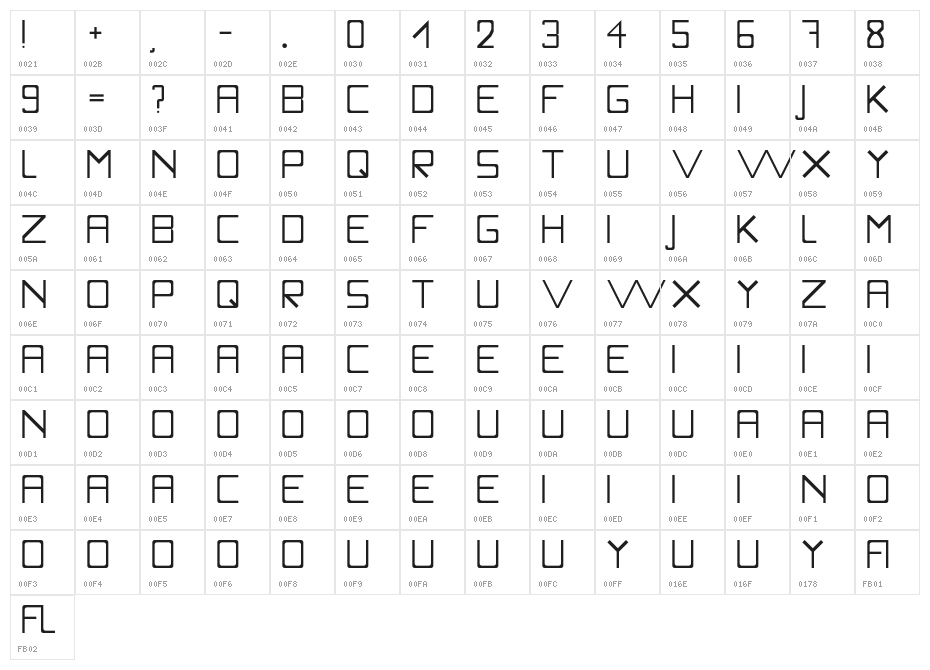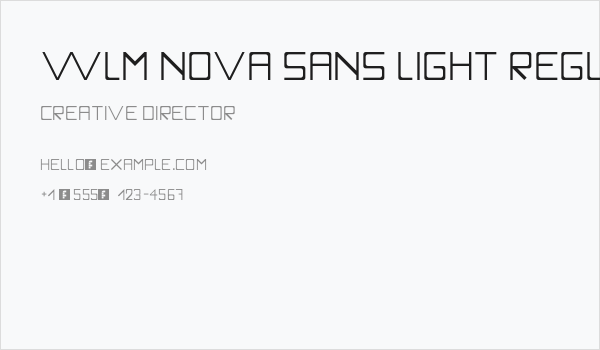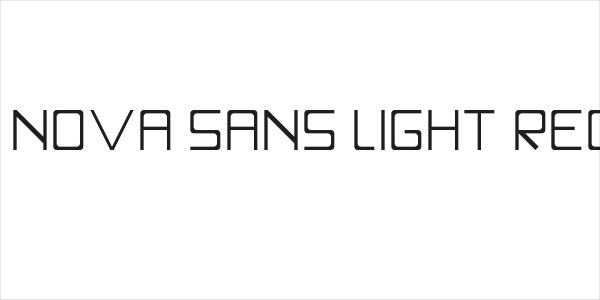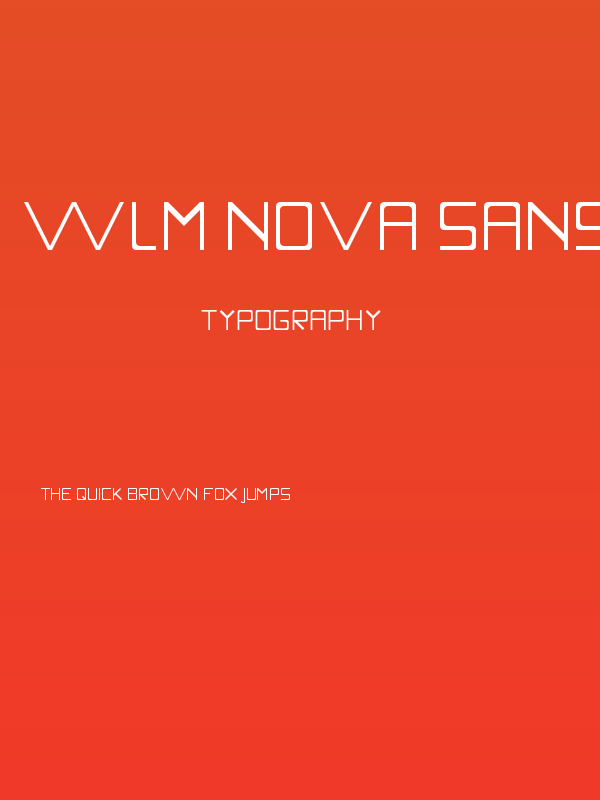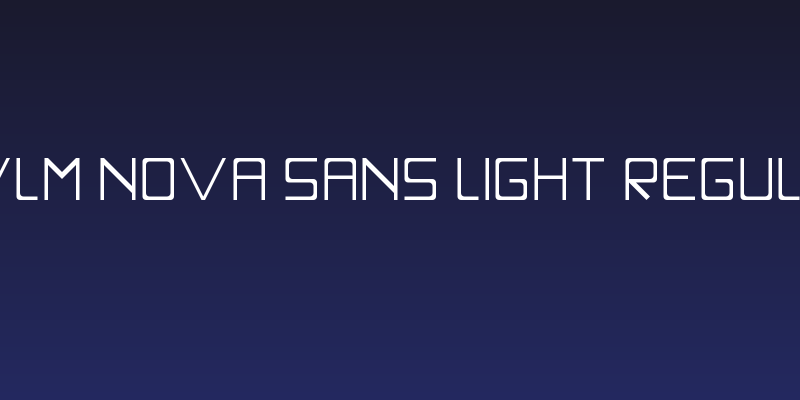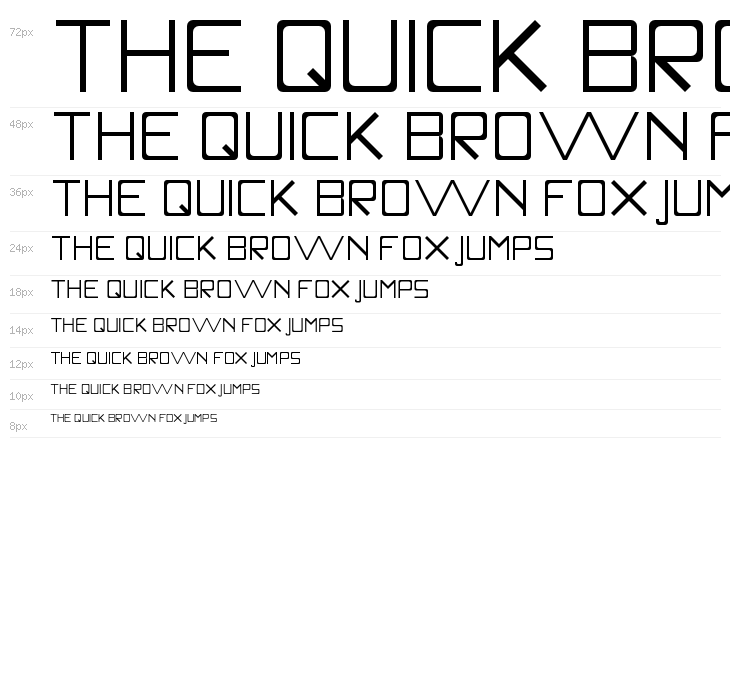
WLM Nova Sans Light Regular Font
WLM Nova Sans Light Regular Description
This font features a clean, geometric design with a modern aesthetic. The characters are constructed with consistent stroke widths, giving it a uniform appearance. The uppercase letters are tall and narrow, while the lowercase letters maintain a similar width, creating a harmonious balance. The numerals are distinct and easily readable, with a slightly futuristic feel. Special characters are designed to match the overall style, ensuring visual consistency across all glyphs. This font is ideal for projects that require a sleek and contemporary look.